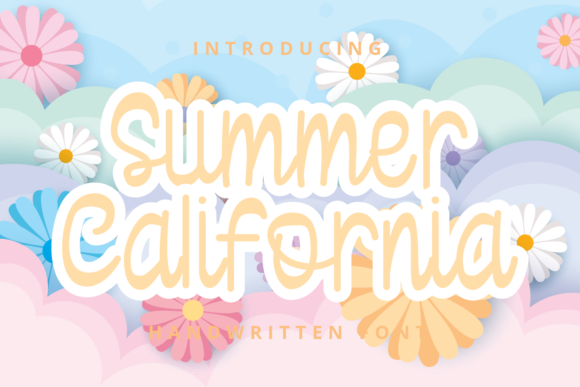
Adorn your designs with the sun-kissed charm of Summer California, a captivating script font that dances across your creations like a wave whispering secrets to the shore. Crafted by the talented team at Planetz studio, Summer California is not just a font; it's an expression of joy, freedom, and the vibrancy of life.
Dive into the depths of Summer California's characters and discover a world of playfulness and creativity. Each letter is a tiny masterpiece, meticulously designed with a touch of whimsy and a hint of nostalgia. As you type, you'll feel like you're writing a heartfelt note to a dear friend, sharing your innermost thoughts and dreams.
With its effortless flow and undeniable charm, Summer California is the perfect choice for game designers seeking to create enchanting, immersive experiences. Whether you're designing a whimsical adventure, a captivating role-playing game, or an enchanting puzzle, Summer California will transport your players to a world where imagination knows no bounds.
Harness the power of Summer California to create eye-catching logos that demand attention and leave a lasting impression. Its playful curves and energetic rhythm will draw customers in like moths to a flame, eager to discover the magic within your brand.
Unleash your creativity and transform your designs into captivating works of art with Summer California. Its versatility knows no limits, making it an indispensable tool for graphic designers, illustrators, and anyone seeking to add a touch of magic to their projects.
With Summer California as your creative companion, the possibilities are endless. Let your imagination run wild, and let your designs bask in the radiant glow of this extraordinary font. Embrace the beauty of Summer California and watch your creations blossom into masterpieces.